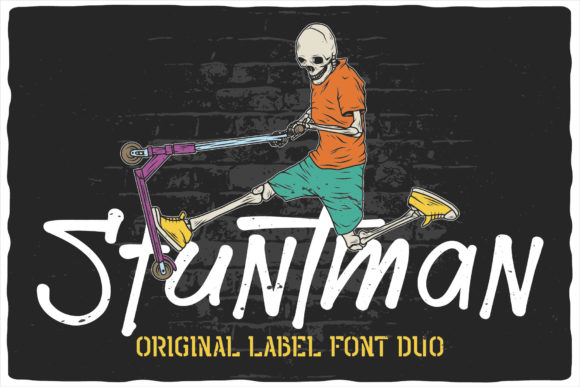
Buckle up and dive into the exhilarating world of Stuntman Font, a display font duo that will ignite your creativity and leave you breathless. Step into the spotlight and let your designs perform gravity-defying feats with this captivating font.
With Stuntman Font, you'll embark on a high-octane adventure where every letter is a daring stunt, pushing the boundaries of typography. This dynamic font duo, featuring a bold display font and a mesmerizing handwritten font, will elevate your designs to new heights.
Visualize your words transformed into vibrant, eye-catching masterpieces that demand attention. Stuntman Font is not just a font; it's a gateway to a world of limitless possibilities, where your imagination becomes the ultimate daredevil.
From breathtaking logos that leap off the page to heart-stopping posters that leave an indelible mark, Stuntman Font is your trusted partner in creating designs that break the mold. Unleash your inner stuntman and watch as your projects soar to staggering heights.
This font duo is an adrenaline rush for your creative senses, propelling your designs into the stratosphere. Join the ranks of fearless designers who embrace the thrill of Stuntman Font and leave the ordinary behind.